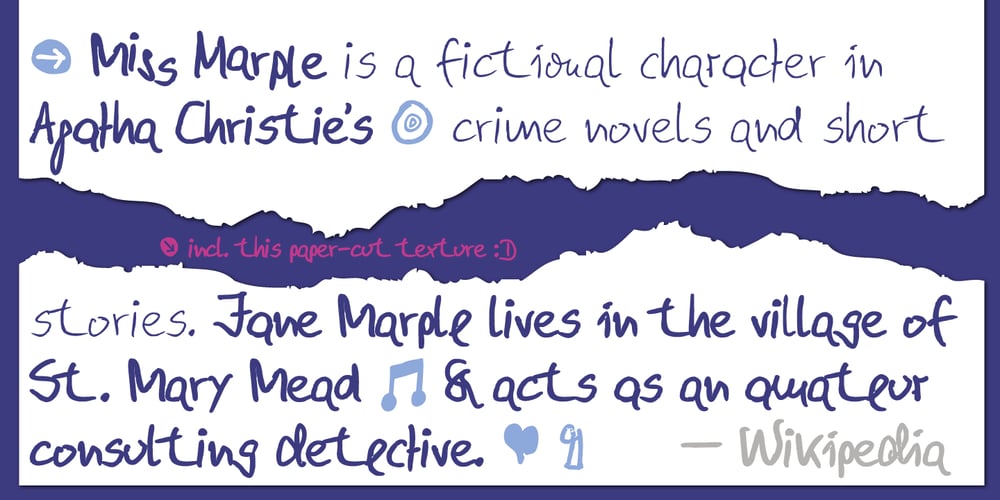
Hand Of Evouli
Hand Of Evouli font
Hand Of Evouli Font Family was designed by Manuel Viergutz and published by TypoGraphicDesign. Hand Of Evouli contains 7 styles and family package options. The typeface Hand Of Evouli is designed from 2022 for the font foundry Typo Graphic Design by Manuel Viergutz.The display font based on the original Handwriting. Digitized via handwritten template. Thanks to Evouli.6 font-styles (Light Pen, Bold, xBold, Black Marker, Black Bounce, Mix) + 1 icon-style with 567 glyphs (Adobe Latin 3) incl. 100+ decorative extras like icons, arrows, dingbats, emojis, symbols, geometric shapes (type the word #LOVE for ❤️ or #SMILE for 🙂 as OpenType-Feature dlig) and stylistic alternates (4 stylistic sets).For use in logos, magazines, posters, advertisement plus as webfont for decorative headlines. The font works best for display size.Have fun with this font & use the DEMO-FONT (with reduced glyph-set) FOR FREE!Font Spe­ci­fi­ca­ti­ons■ Font Name: Hand Of Evouli■ Font Styles: 6 font styles (Light Pen, Bold, xBold, Black Marker, Black Bounce, Mix) + DEMO (with reduced glyph-set)■ Font Cate­gory: Dis­play Script for head­line size■ Font For­mat: .otf (Mac + Win, for Print) + .woff (for Web)■ Glyph Set: 567 glyphs (Latin 3 incl. decorative extras like icons)■ Lan­guage Sup­port: 87 languages: Afrikaans Albanian Asu Basque Bemba Bena Breton Catalan Chiga Colognian Cornish Croatian Czech Danish Dutch English Estonian Faroese Filipino Finnish French Friulian Galician Ganda German Gusii Hungarian Inari Sami Indonesian Irish Italian Jola-Fonyi Kabuverdianu Kalenjin Kinyarwanda Latvian Lithuanian Lower Sorbian Luo Luxembourgish Luyia Machame Makhuwa-Meetto Makonde Malagasy Maltese Manx Morisyen Northern Sami North Ndebele Norwegian Bokmål Norwegian Nynorsk Nyankole Oromo Polish Portuguese Quechua Romanian Romansh Rombo Rundi Rwa Samburu Sango Sangu Scottish Gaelic Sena Serbian Shambala Shona Slovak Soga Somali Spanish Swahili Swedish Swiss German Taita Teso Turkish Upper Sorbian Uzbek (Latin) Volapük Vunjo Welsh Western Frisian Zulu■ Design Date: 2022■ Type Desi­gner: Evouli & Manuel Viergutz